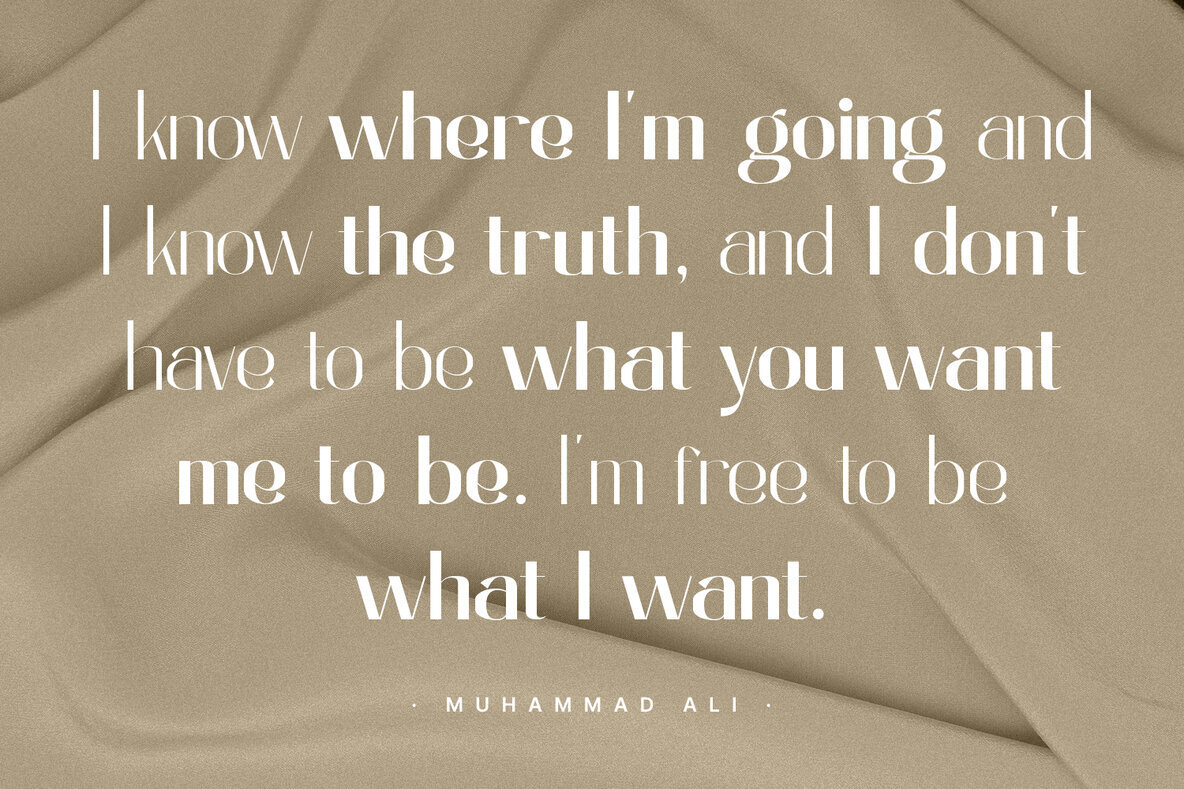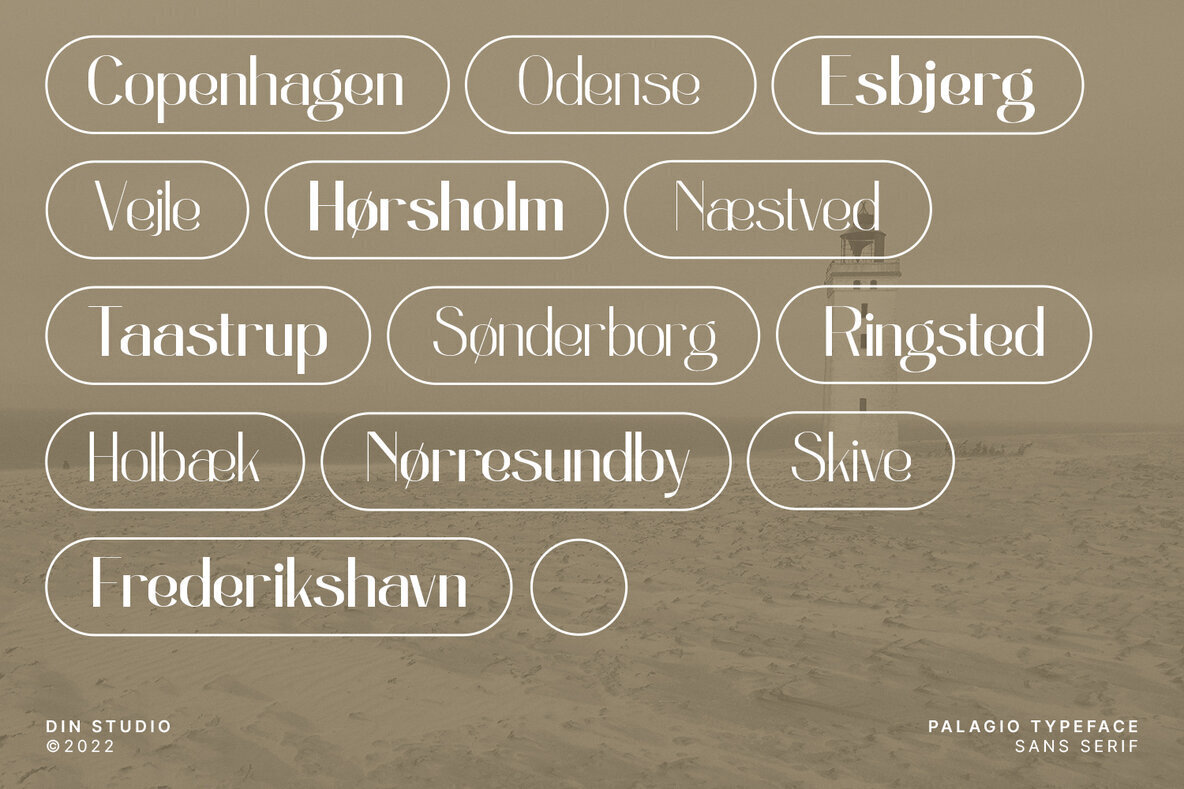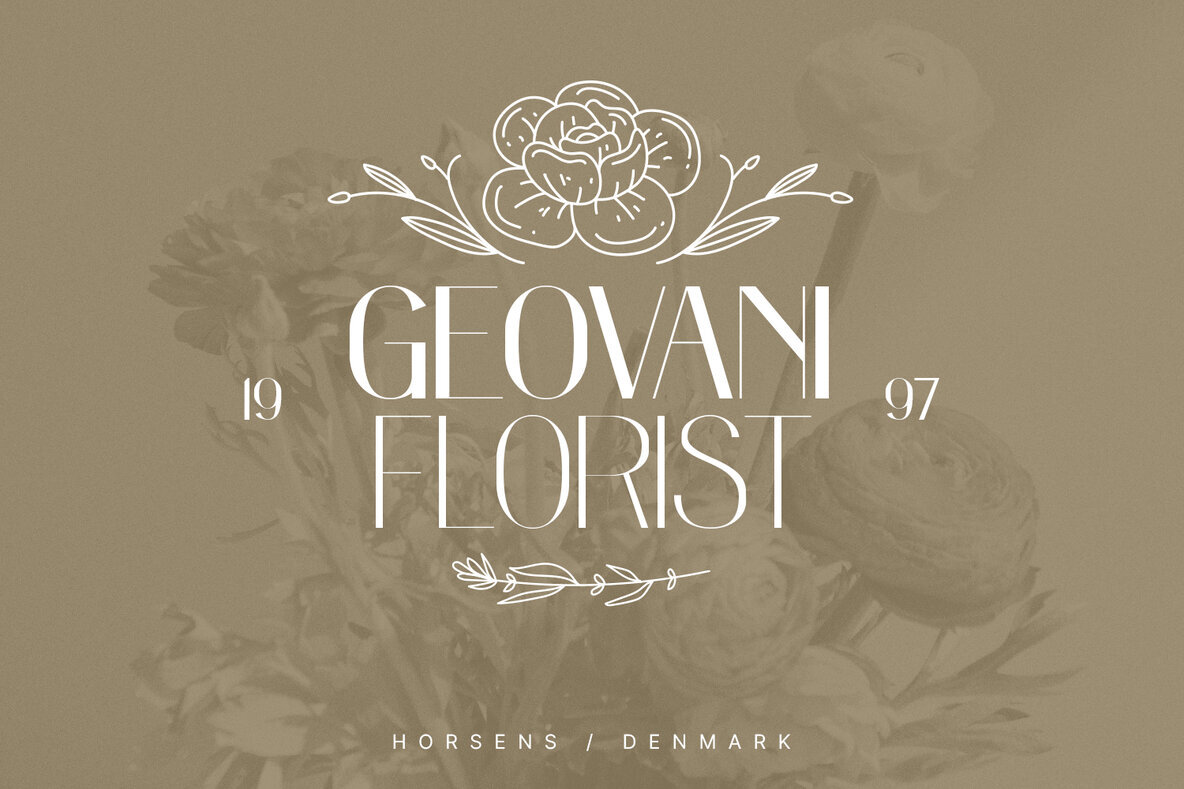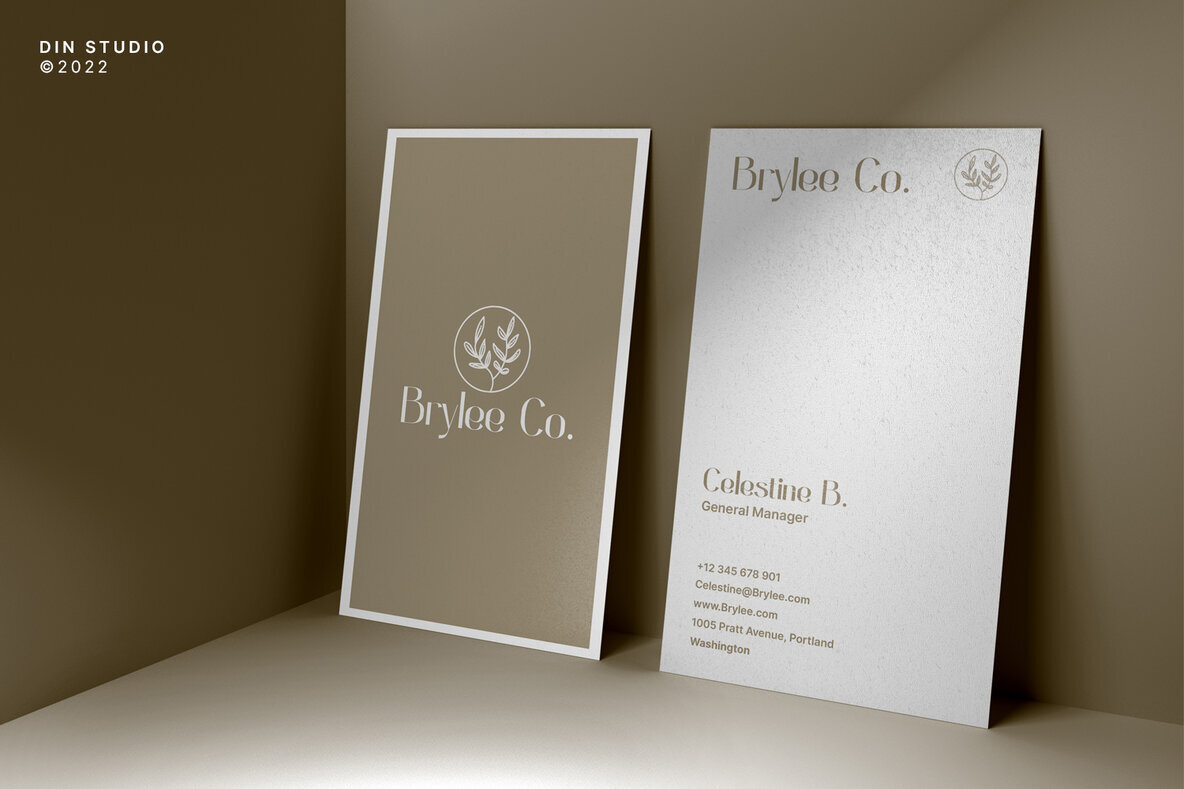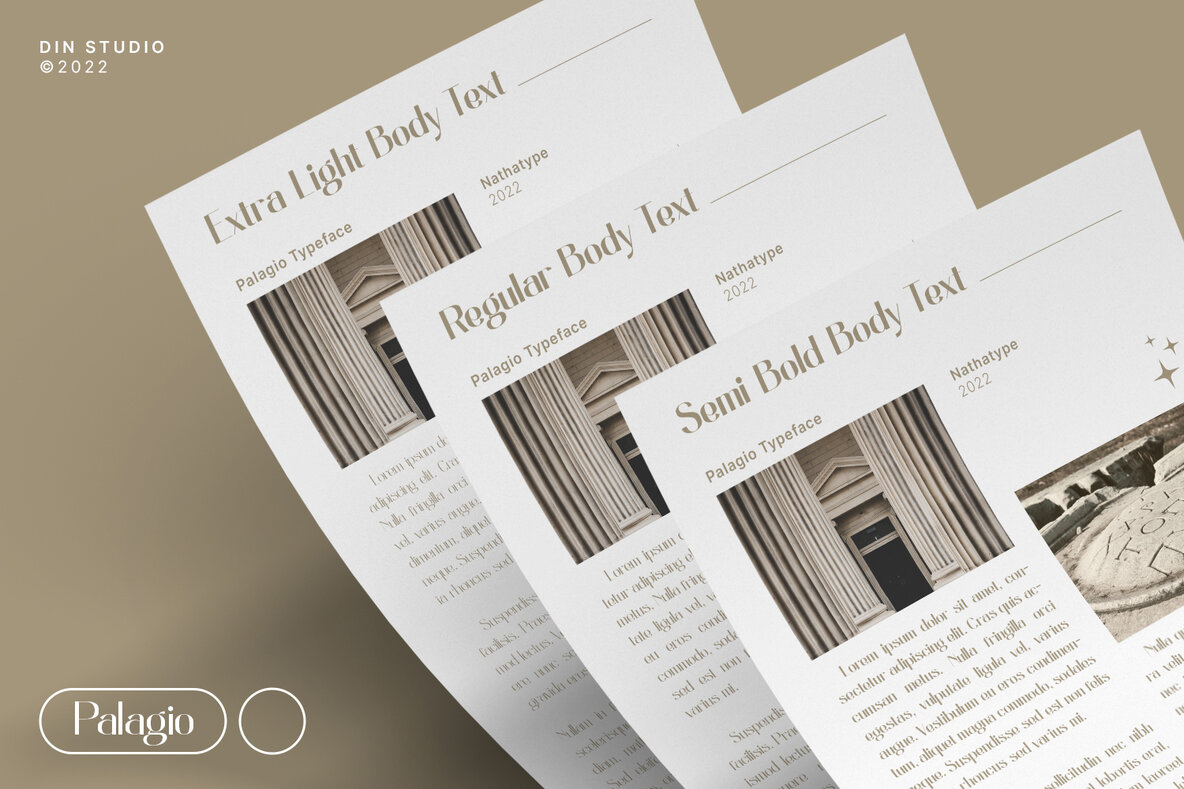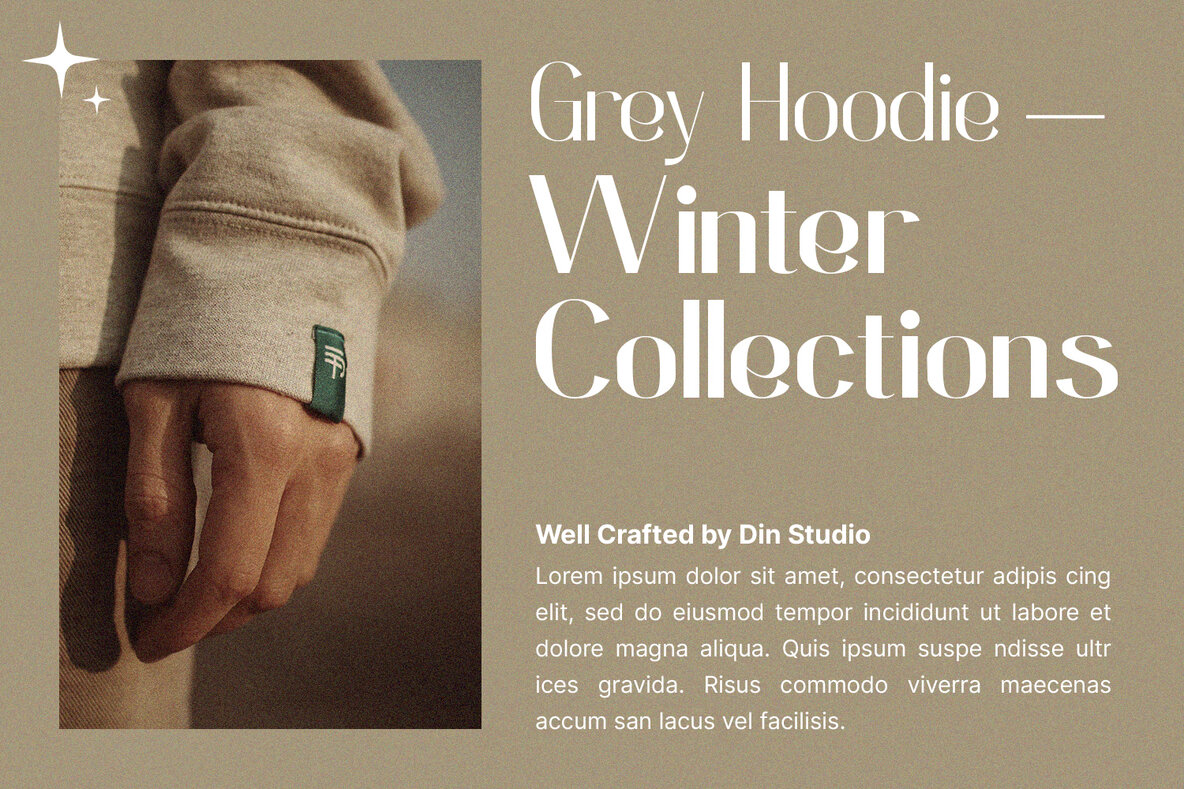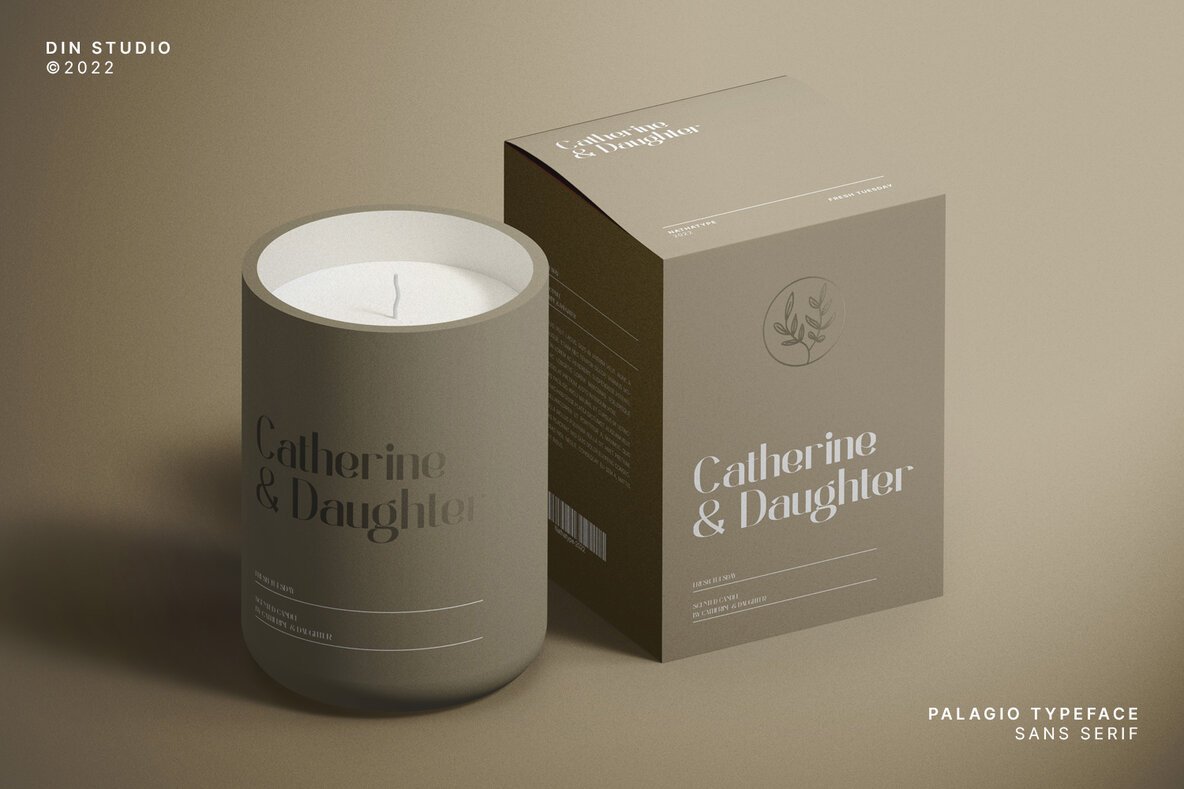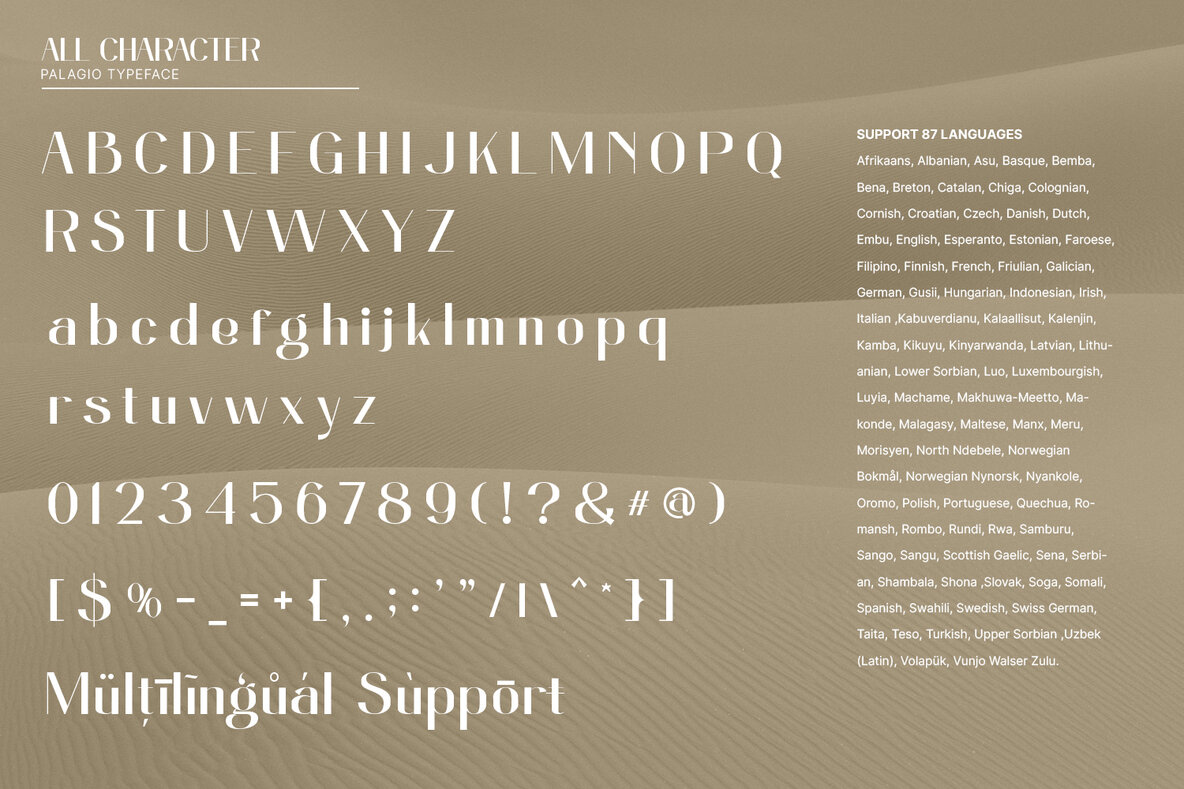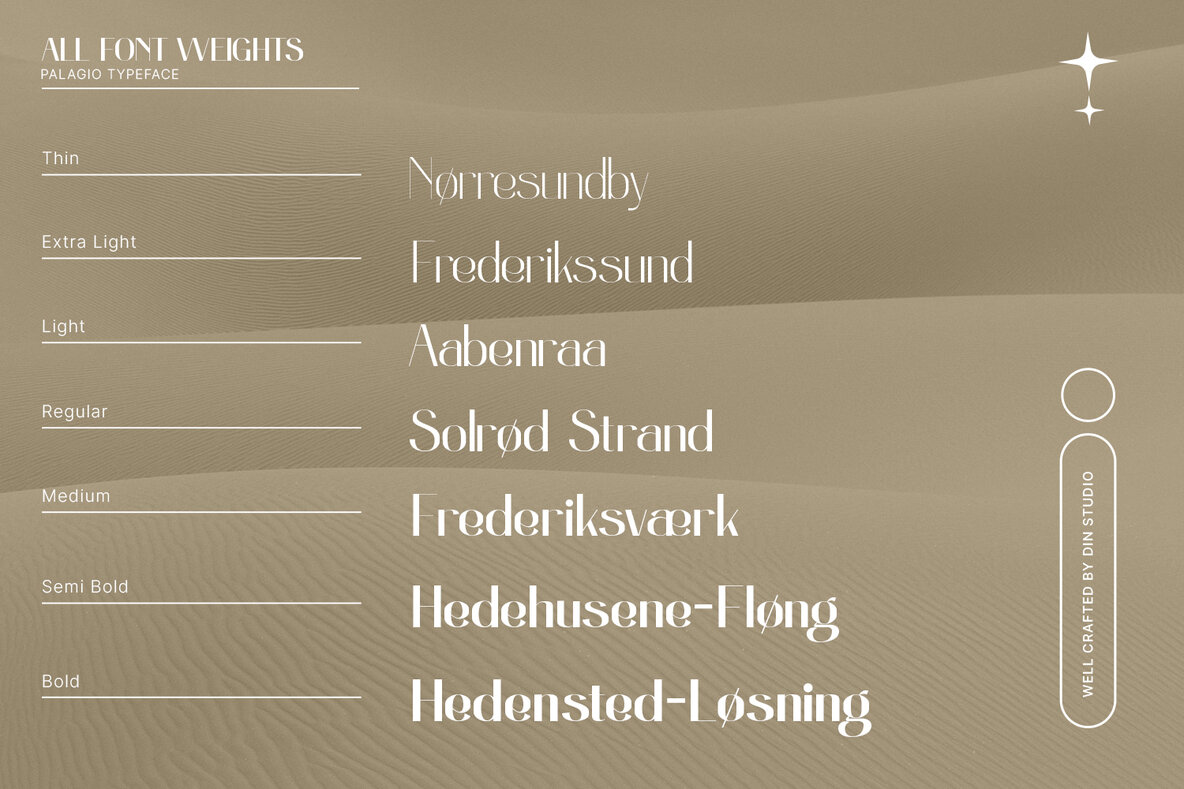
Palagio Font
Palagio is a sans serif font package that will delight you. A font family that projects simple, warm, yet modern style. Palagio comes with 7 different weights. It is versatile enough to be used as title, body or button text.
- Multilingual Supports
- Numerals and Punctuations
It is perfectly used for branding, logos, social media quotes, stickers, posters, vintage designs, wall art, merchandise, social media, and many more. Get more inspiration by seeing the preview.